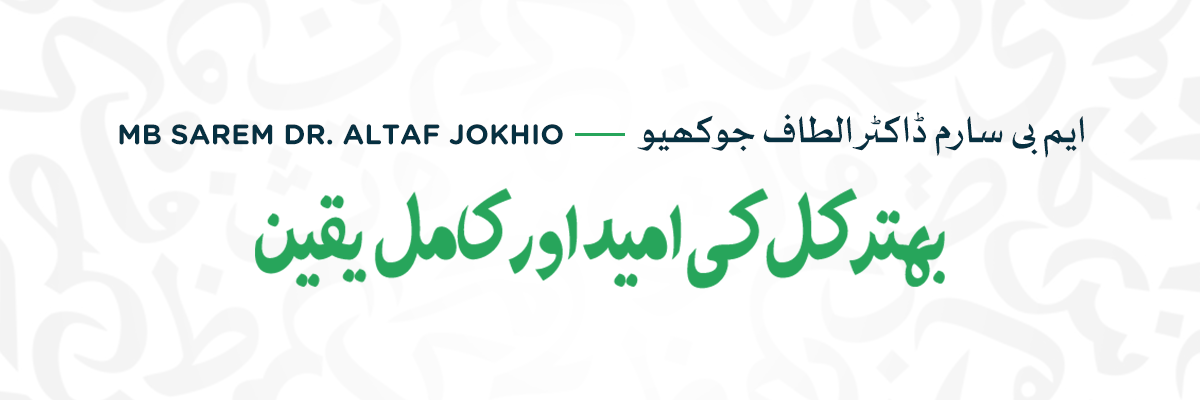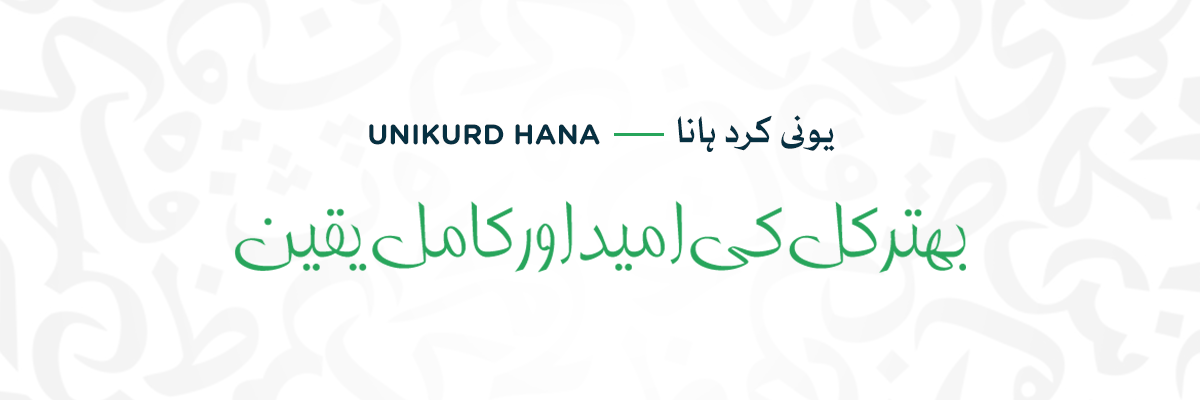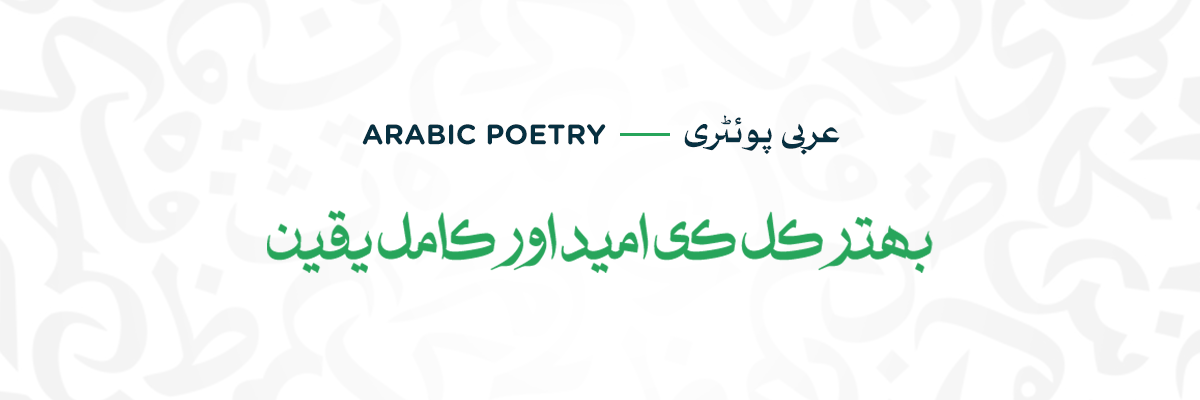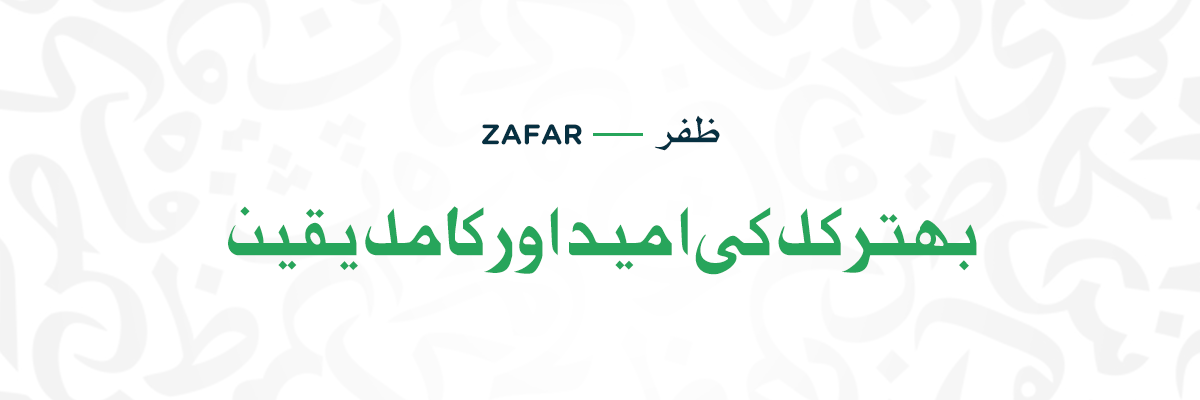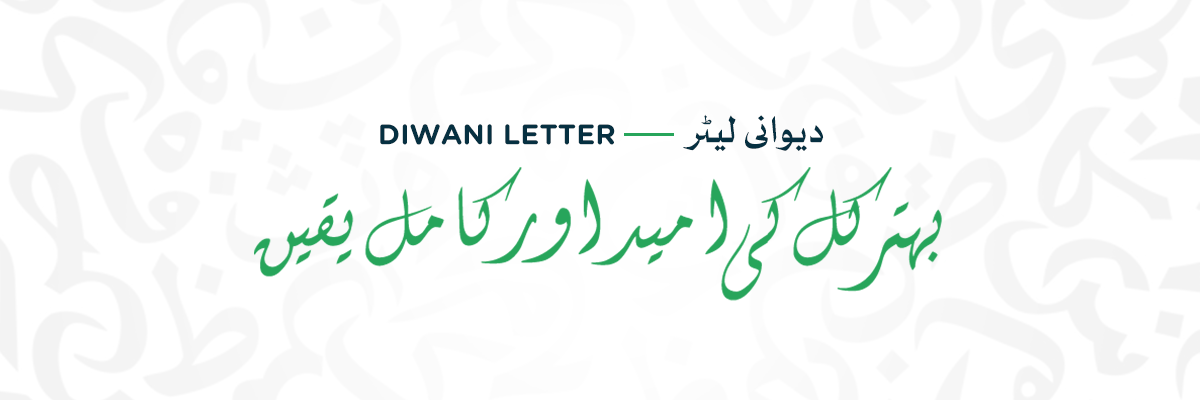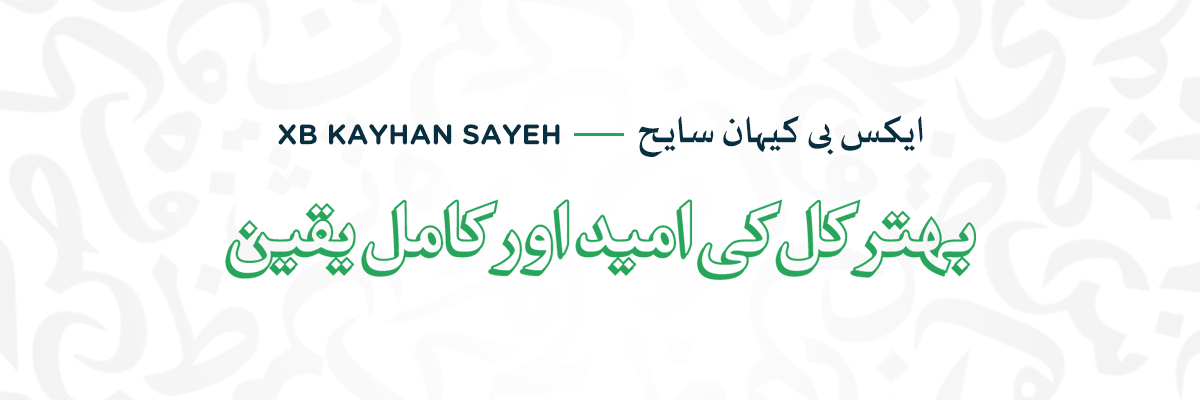
TikTok is one of the most used social media platforms in Pakistan. People use it for many reasons, for example, marketing purposes, promotions, or even just for fun. When it comes to writing the titles or captions in TikTok videos, that’s where the importance of Urdu fonts come in. Your selected fonts play a vital role in making the best TikTok. They not only serve as a design element for your videos rather they help creators to increase engagement and also to capture the attention of Pakistani viewers towards their content.
In addition, using the best Urdu fonts improve the content clarity and convey your messages successfully even without using any sound or voiceover. They likewise guarantee inclusiveness for every single viewer, including people with hearing problems. The appropriate font can boost your SEO on the platform, making the content more interesting. Below, we will discuss about some of the highly popular Urdu fonts you must use in your TikTok videos. Moreover, learn more about some the best Urdu Fonts for Facebook content creation, to make your reels and posts more engaging.
Being a Pakistani, selecting Urdu fonts might not be the first thing popping up to your mind while making a TikTok video, but these fonts play a crucial role in its engagement as well as design. Being a content creator, you have to plan how to depict the story, which things to include or leave out and how it should appear and sound. Also, you have to decide which Urdu fonts you should use in the videos that comes on screen. To make it easy for you, we have made a list of the best fonts to make your videos engaging. Let’s have a look at them below:
| Sr. | Name | Designer | Features |
|---|---|---|---|
| 1 | Gulzar | Fiona Ross, Alice Savoie, Borna Izadpanah, Simon Cozens | Formal yet clear look, unique Latin counterpart. |
| 2 | Zohar Unicode | Syed Manzar Hasan Zaidi | Natural, handwritten look, high legibility on screens. |
| 3 | SF Koonj | Rizwan Atta | Clear and simple design, high readability, elegant without decorations. |
| 4 | Ara Hamah Alislam | Nabil MRAD | Bold, geometric letters, ideal for short texts, readable on smaller screens. |
| 5 | XB Kayhan Sayeh | Behnam | Thick outlines, hollow effect, stroke thickness varies, playful and bold letterforms. |
| 6 | MB Sarem Dr. Altaf Jokhio | Sanaullah Mangnejo Sarem | Bold, decorative, varied letter shapes, decorative serifs, dynamic connections. |
| 7 | Diwani Letter | Microsoft | Cursive, elegant, curly edges, elongated tails, intricate designs, decorative and stylish appearance. |
| 8 | Unikurd Hana | Ardawan, Bardaqani, Azad | Flowing, wide letters, curly terminals, soft curves, high readability, best for short texts. |
| 9 | Arabic Poetry | Zakariya Saleh | Condensed, diamond-shaped dots, wide diagonal edges, rounded curves, strong impact. |
| 10 | Nabi | Hossein Zahedi | Clean lines, contrasting strokes, simple yet sophisticated design, high readability. |
| 11 | Zafar | Syed Manzar Hasan Zaidi | Bold and modern, extra-thick strokes, clear letterforms, balanced spacing. |
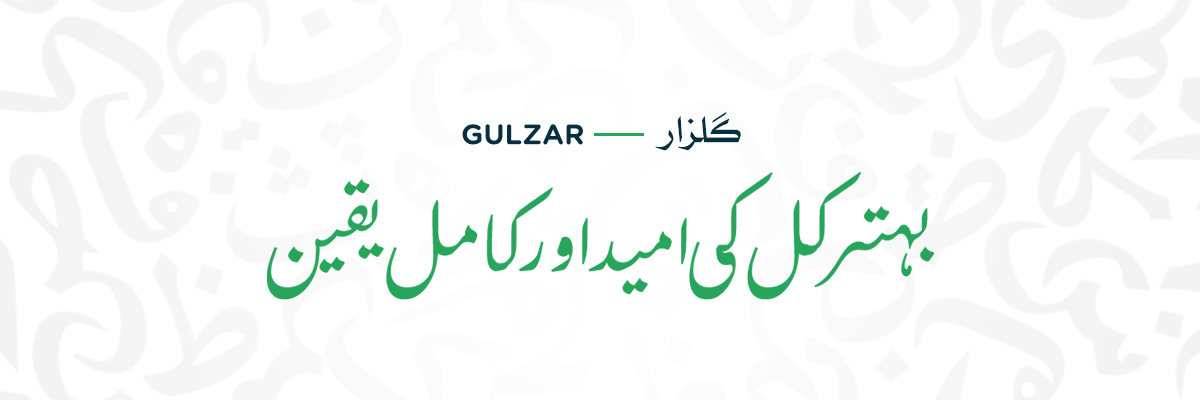
Launched on 27th Sep, 2022, Gulzar was designed by Fiona Ross, Alice Savoie, Borna Izadpanah, and Simon Cozens. It is a modern Urdu font inspired by Nastaliq script. With a Qalam writing style, the font has diagonal letterforms, moderate thickness, and overall stylish appearance. Because of slightly slanted edges, it has a formal yet clear look. The elegant design as well as high readability make this font a good choice for TikTok videos. Furthermore, it also has a unique Latin counterpart inspired by traditional calligraphy, making it appropriate for creative videos or even some sort of educational or informational videos.
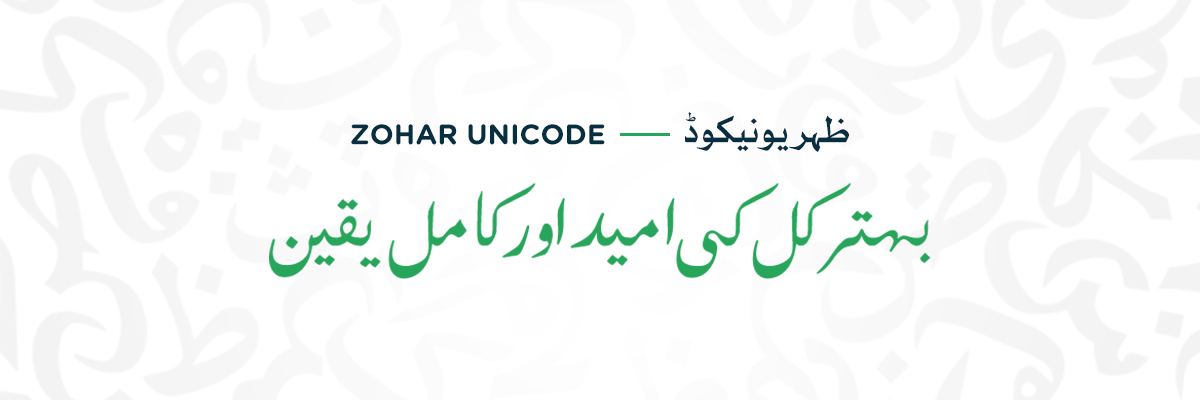
Zohar was designed by a popular designer Syed Manzar Hasan Zaidi and launched by Axis Softmedia Pvt. Ltd. Inspired by classical Nastaliq script, the font gives a very natural and handwritten look. The flowing, irregular letterforms as well as thin lines adds a welcoming, authentic essence to your text. Moreover, it is highly legible even on screens, making it perfect for TikTok users as they mostly use it on their mobile devices. The font has rounded corners, equal spacing, and thick, pointy edges that makes it a good option for poetry, clothing, and advertising videos.
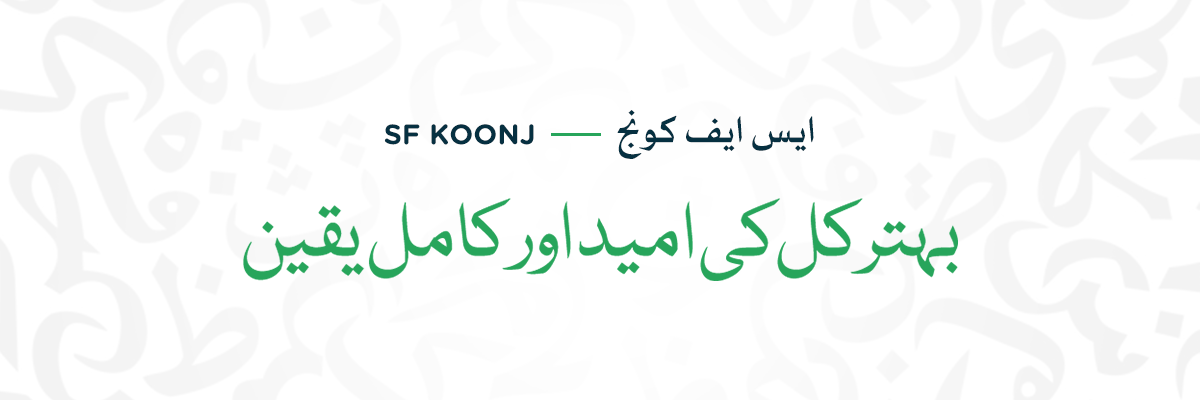
Launched on 2nd Oct, 2012 under GPL, SF Koonj, another one of the best TikTok Urdu Fonts, was created by Rizwan Atta. It is a clear and simple Urdu font inspired by the Naskh script. The font has constant and moderate thickness, providing readable, clear strokes for your screens. The overall elegant or sophisticated design of this font without any decorations makes it best for advertising or branding related videos. Moreover, the balanced spacing guarantee high readability, making it a multipurpose, professional font appropriate for different TikTok videos and increasing visual appeal.
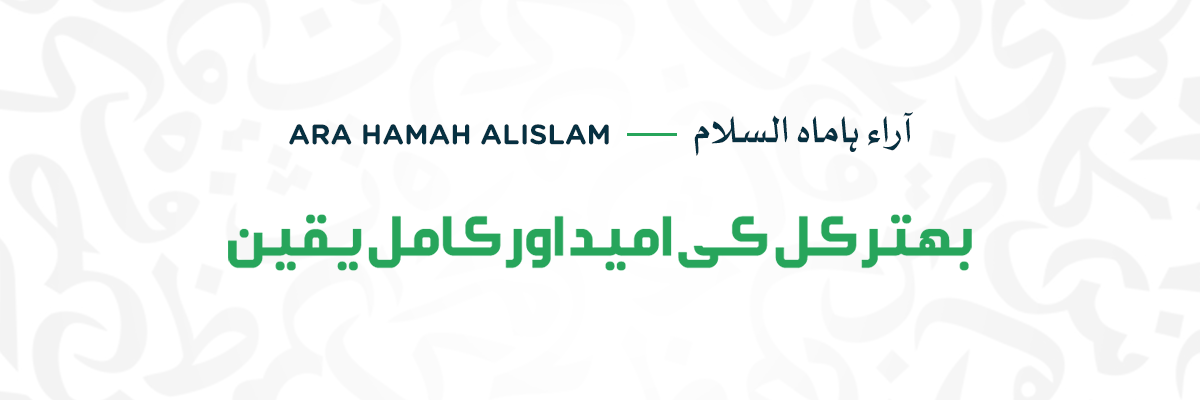
Ara Hamah Alislam was designed by Nabil MRAD and was released by iSktFalConS and ZakDesign in 2017. It is a bold and geometric Arabic typeface with wide, filled characters and a modern look. The font has thick, smooth letters that are easier to read and provides text with a strong, impressive appearance. Furthermore, it has wide edges, soft corners, and small, equal spaces between its letters. Available in just one font weight, it is ideal for short texts such as titles or headings. Because it is bold, that’s why it remains readable even at smaller screens, but might appear condensed at bad resolution. Explore more like this in our list of best Tech Urdu Fonts, offering a futuristic vibe to the Urdu text.